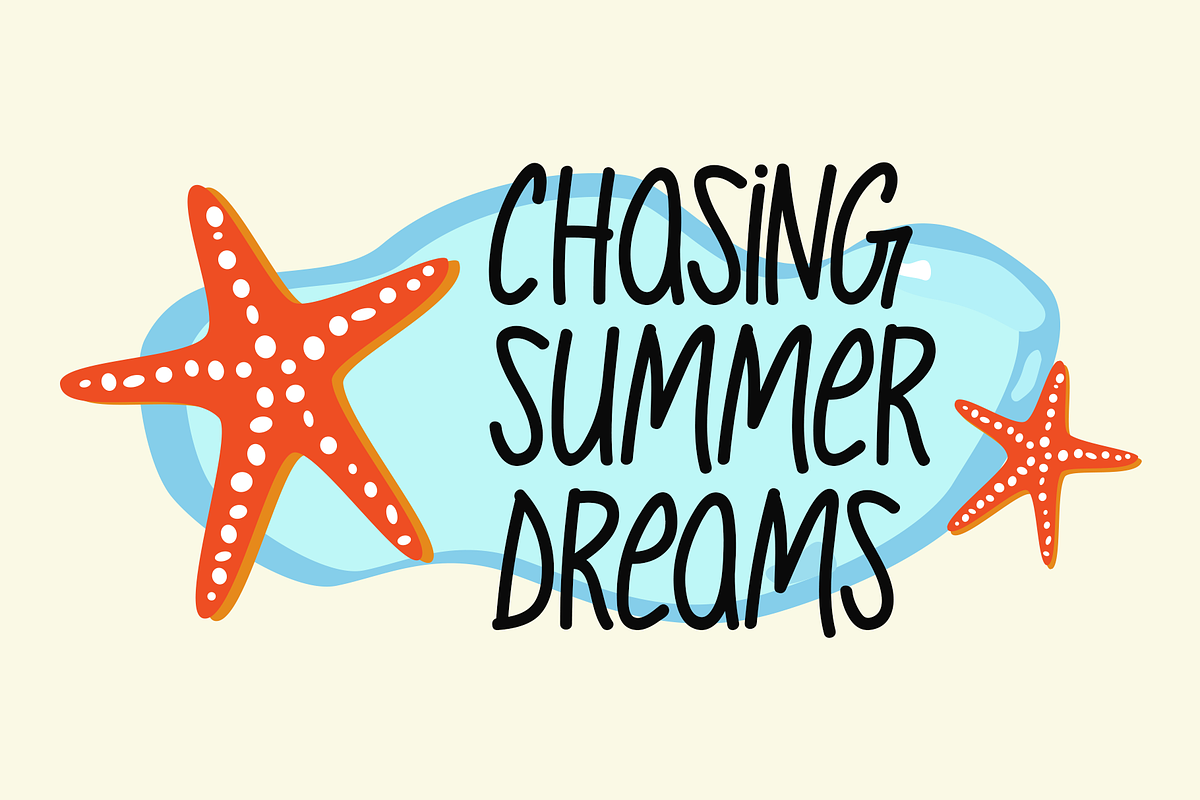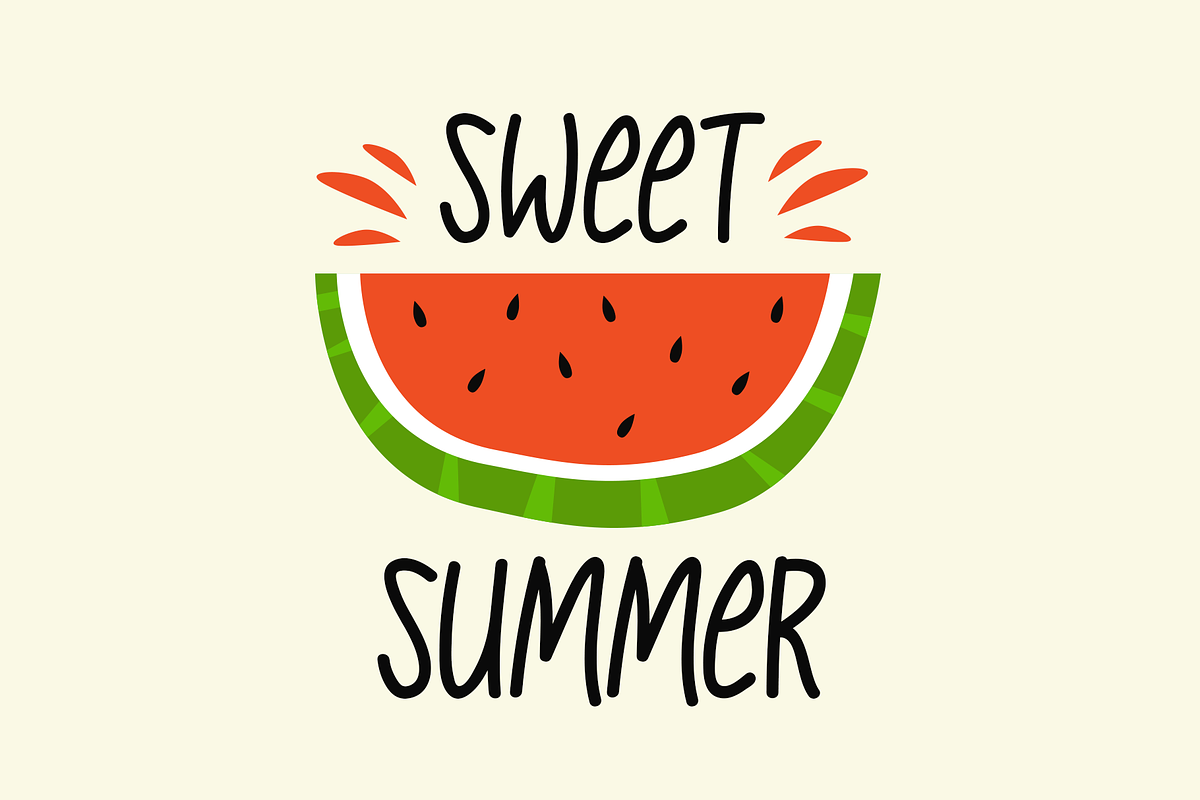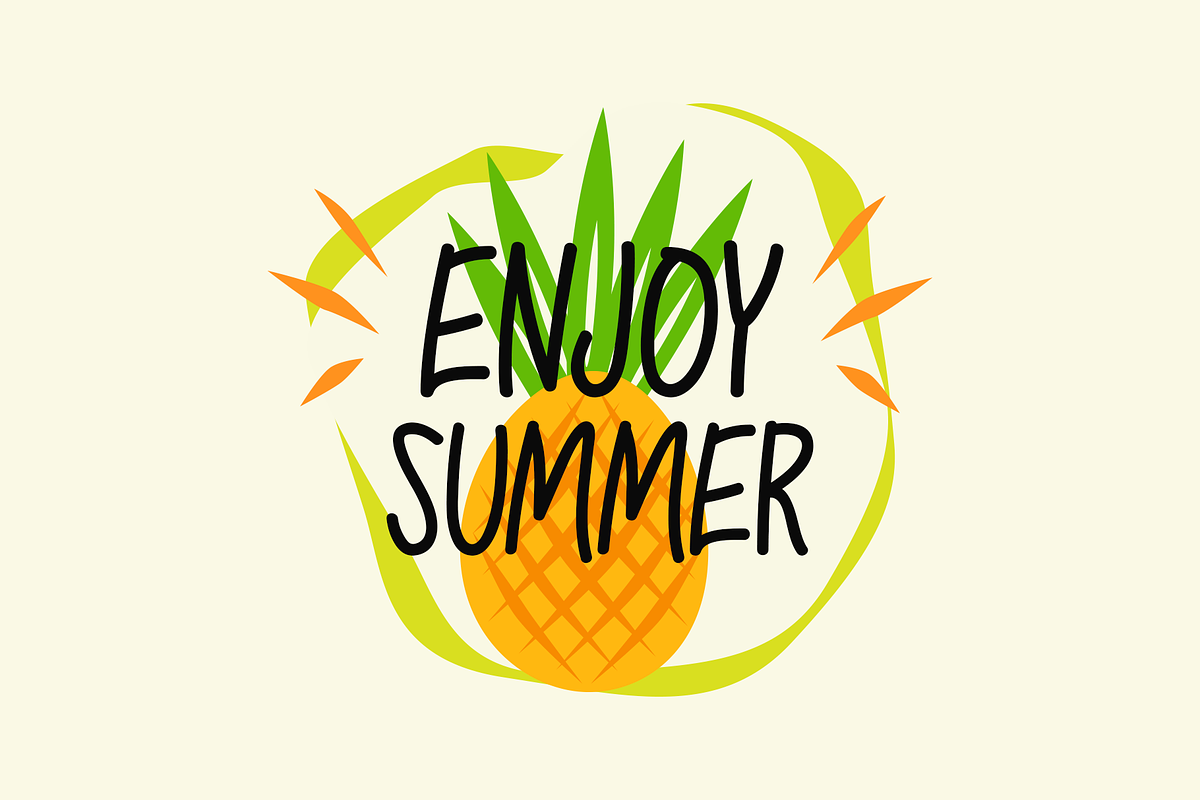
Shining Summer Typeface
Introducing Shining Summer!
A beautifully designed handwritten font that embodies spontaneity and fun is Shining Summer. It is a fantastic option for branding, clothing, and ornamental print materials because of its delicate, flowing lines. This typeface provides a casual yet fashionable touch to any design, whether it's for sophisticated stationery, striking posters, or captivating social media material. With its organic and welcoming charm, Shining Summer subtly elevates any creative work, making it ideal for posters, music covers, website headers, and more.